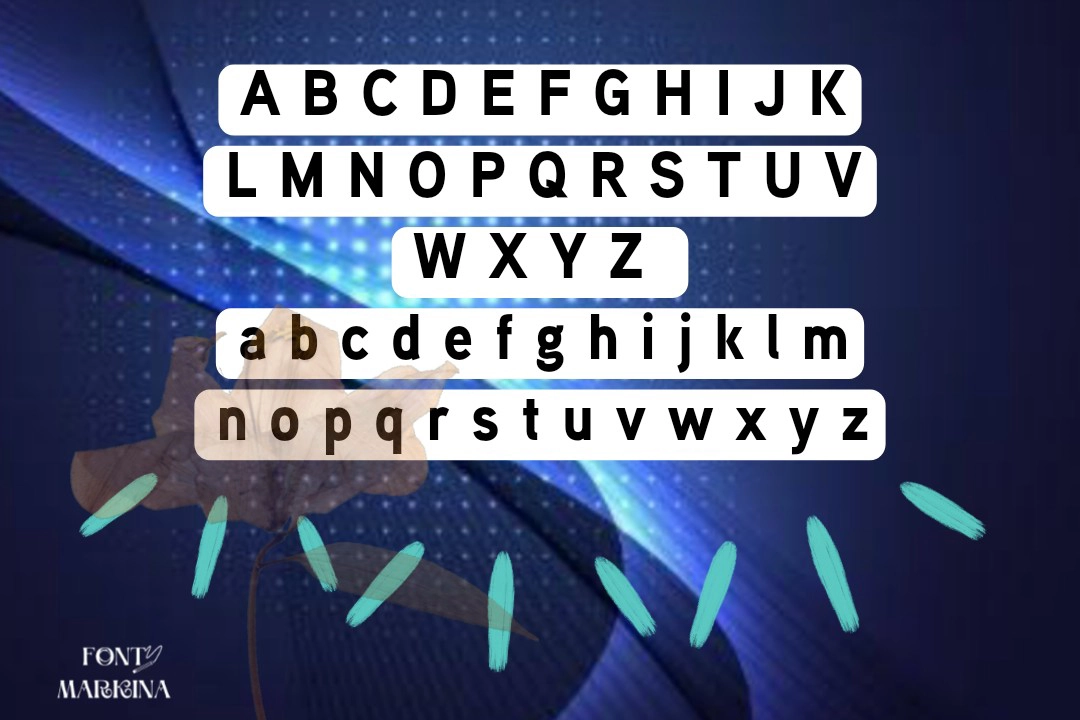
aaux next font
Aaux Next is a modern sans-serif typeface family designed by Neil Summerour and released by the foundry Positype. This font family is known for its versatility and clean, contemporary appearance, making it suitable for a wide range of design applications. Here are some key features and details about Aaux Next:
Aaux Next is characterized by its clean lines, minimalistic style, and humanist letterforms. It has a slightly geometric touch, balancing functionality and aesthetics.
The typeface is designed to be highly legible at various sizes, making it ideal for both display and body text. The family includes a comprehensive range of weights from Thin to Black, each with matching italics. It offers several stylistic sets and alternate characters, allowing designers to customize the look and feel of the text.
Designer and Foundry:
Neil Summerour, an award-winning type designer, created Aaux Next. He is known for his extensive portfolio of typefaces that combine functionality with distinctive aesthetics. Positype, the foundry behind Aaux Next, is recognized for producing high-quality, innovative type designs.
Uses of Aaux Next Font
Due to its clean and modern appearance, Aaux Next is well-suited for branding, advertising, web design, editorial design, and user interfaces. Its legibility and range of styles make it a practical choice for both digital and print media.
When we come to the uses of this family, it is very impressive that it is used for a vast variety of projects. In business sectors, the common use of this texture is for special signatures, maintenance tasks, and secret plans. Fashion magazine companies used this texture.
What is Aaux Next?
It is a modern sans-serif typeface family designed by Neil Summerour and released by Positype. It is known for its clean lines, contemporary look, and high legibility.
Who designed Aaux Next?
The font was designed by Neil Summerour, an award-winning type designer and founder of the Positype foundry.
What styles and weights are available in the Aaux Next family?
It includes a wide range of weights from Thin to Black, each with matching italics. The family also includes several stylistic sets and alternate characters.
What languages does Aaux Next support?
It supports a broad range of languages, including Western, Central, and Eastern European languages, making it suitable for international projects.
What OpenType features does Aaux Next offer?
This font includes a rich set of OpenType features such as ligatures, fractions, small capitals, and various numeral styles (oldstyle, lining, tabular), which provide added flexibility for typographic design.
What are the best use cases for Aaux Next?
It is versatile and can be used for branding, advertising, web design, editorial design, user interfaces, and both digital and print media. Its clean and modern appearance makes it suitable for a variety of design projects.
Does Aaux Next include any special characters or symbols?
Yes, This font includes a variety of special characters, symbols, and alternate glyphs, providing a high degree of typographic flexibility.
Is Aaux Next suitable for body text or just headlines?
It is designed to be highly legible in various sizes, making it suitable for both body text and headlines. Its clean design ensures readability in longer texts while maintaining a modern aesthetic for display purposes.
Are there any similar fonts to Aaux Next?